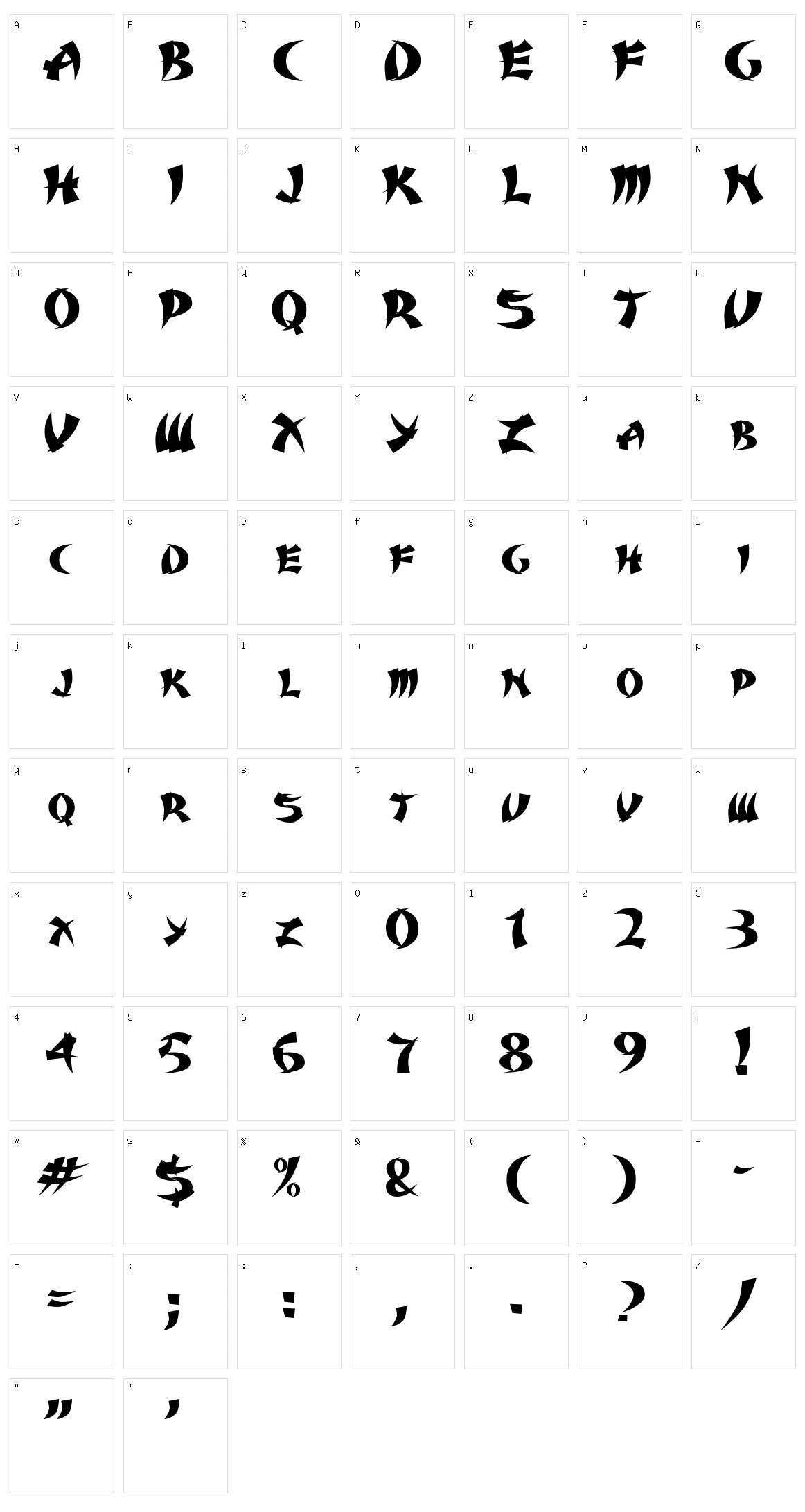
The free font Karate is carefully designed by Gary D. Jessey, showcasing a thoughtful balance of creativity and usability and falls under the Asian font style. When you download the ZIP file, it contains only 15.15 KB of font files, making it lightweight and quick to download. Please review the license details below to understand permitted usage and distribution rights. If license information is not available, we recommend using this font for personal projects only or contacting the author directly for commercial usage permissions.